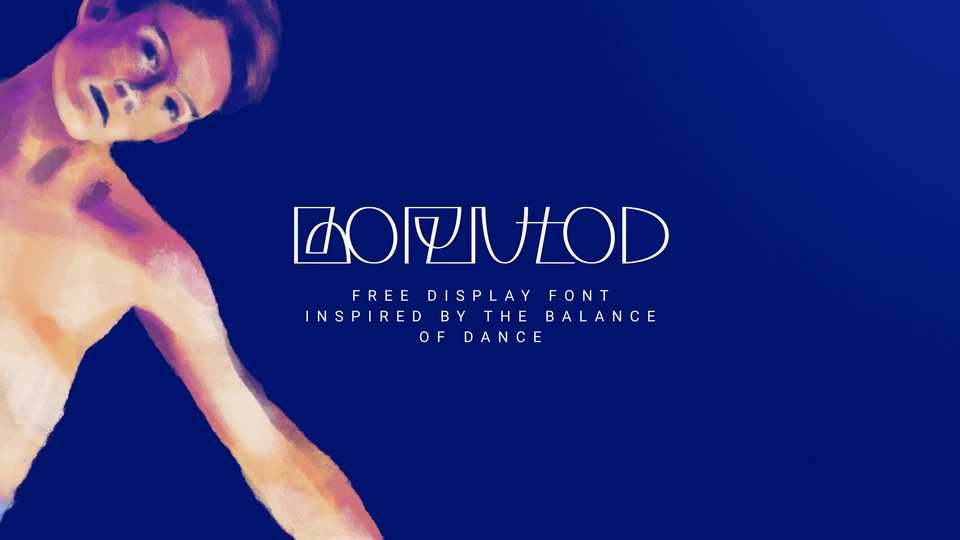
Download Borntod typeface, a unique display font family with three weights inspired by the balance of dance. Borntod is the best choice for posters and magazine covers or as an expressive element typography artworks.
Designer: Alexey Atapin